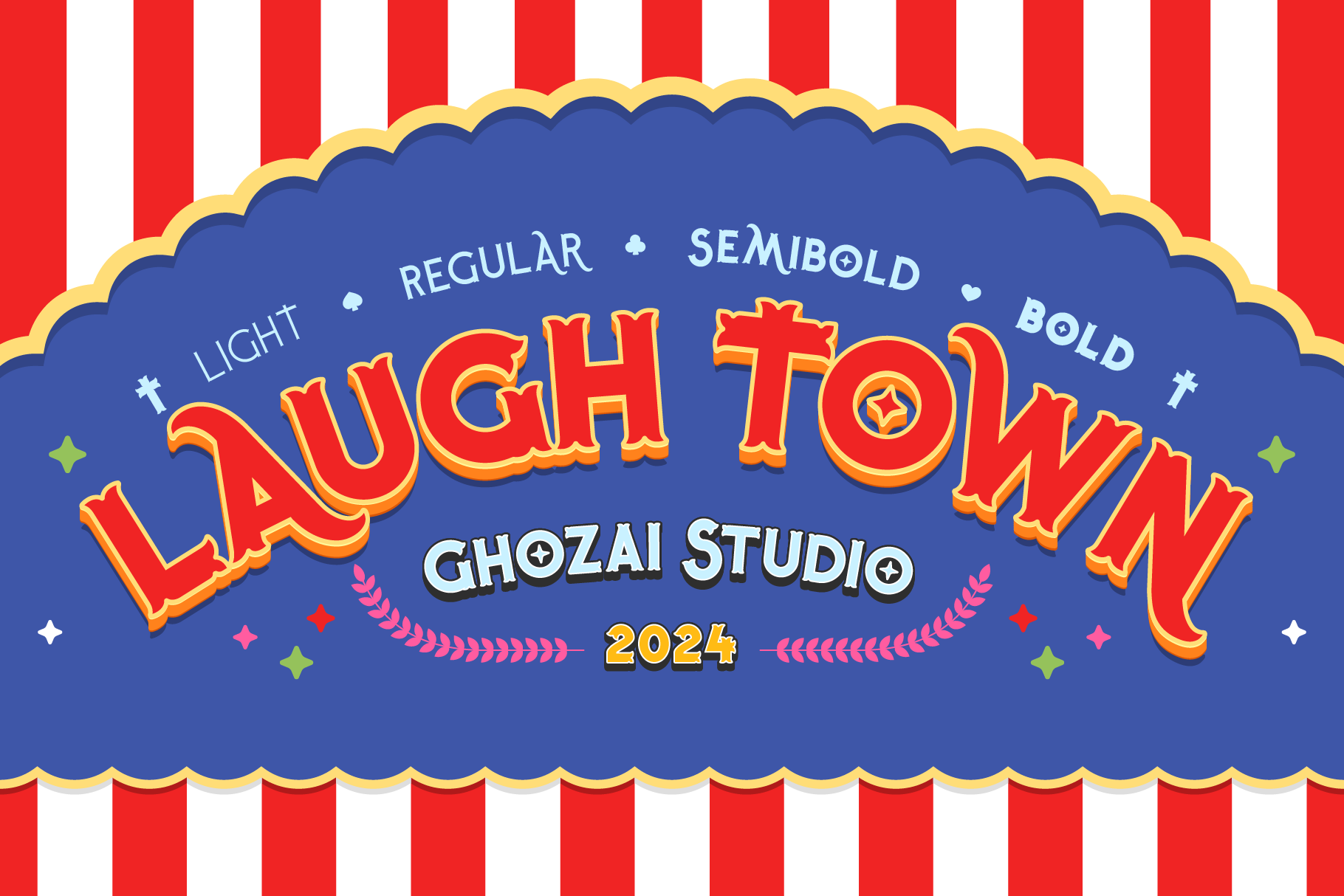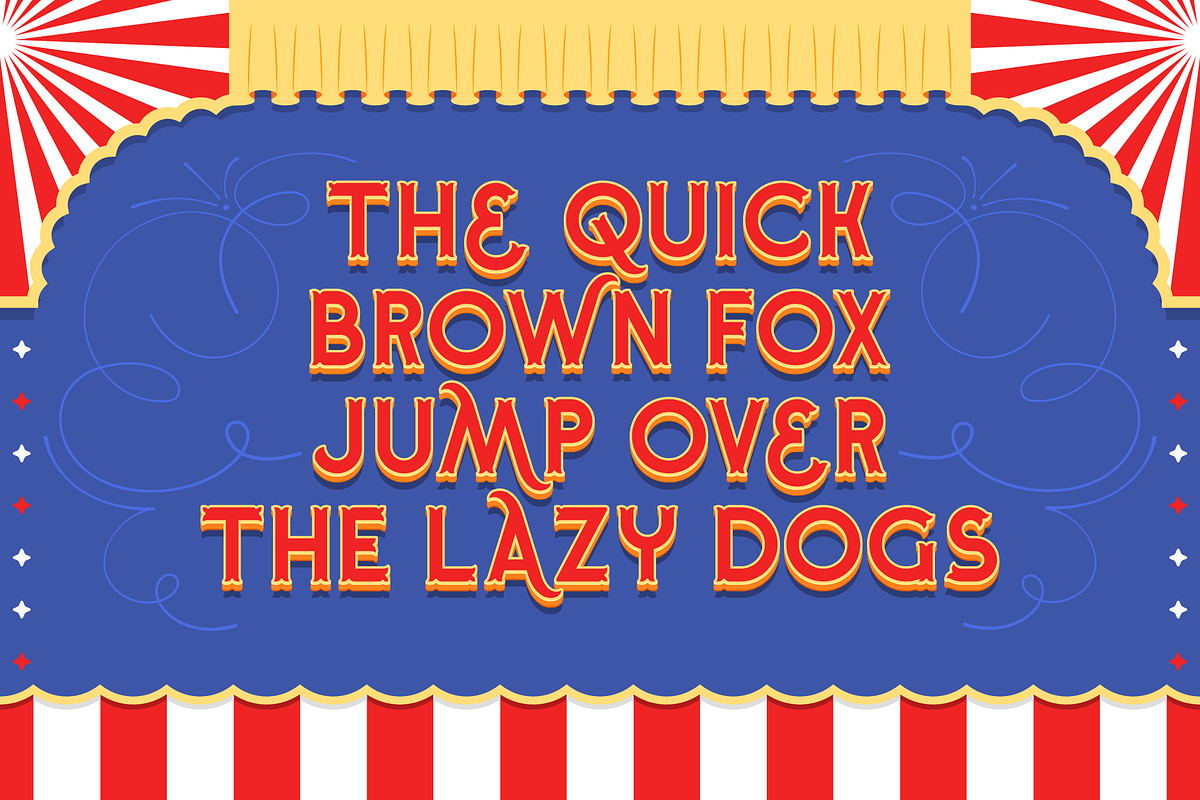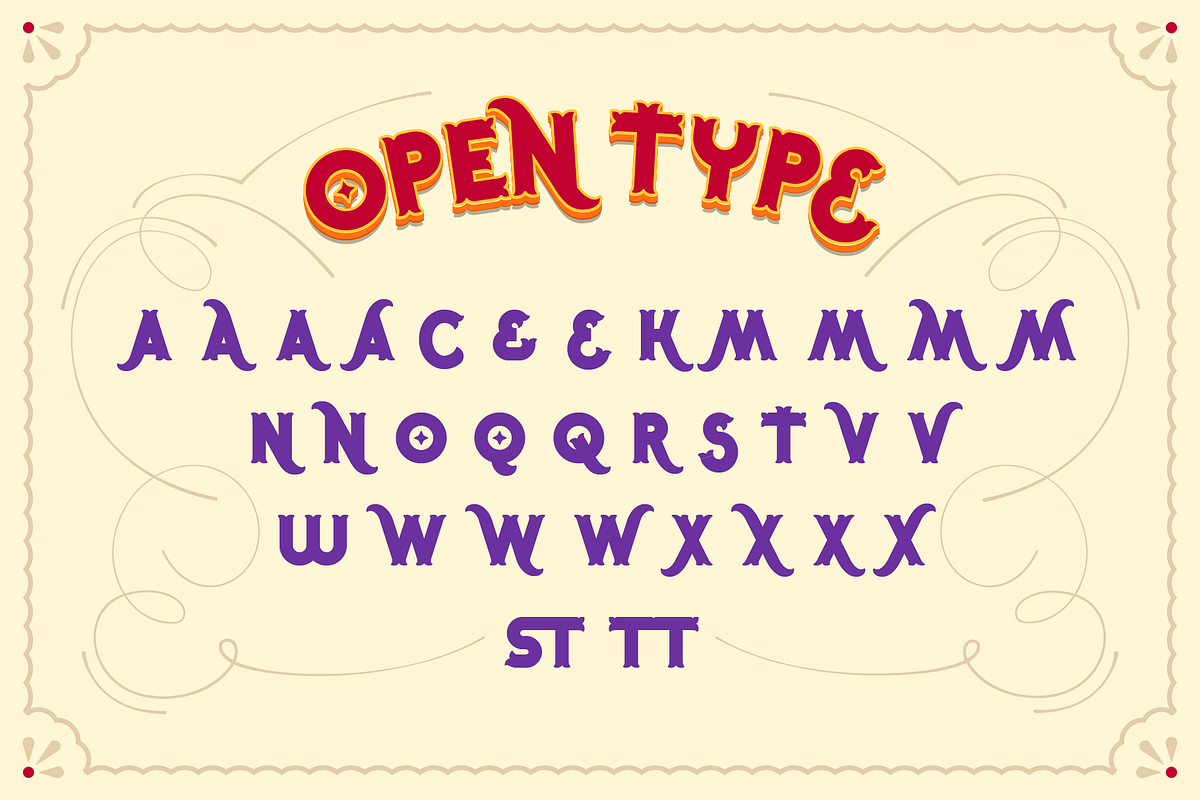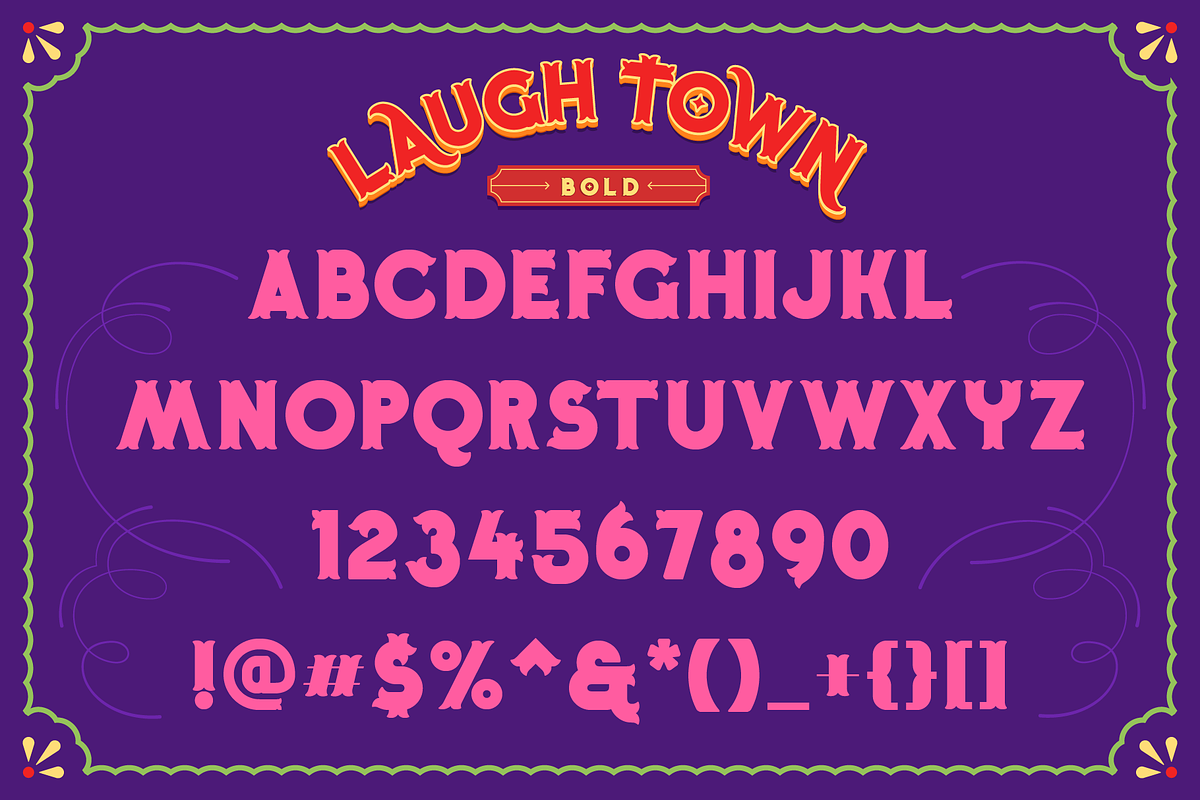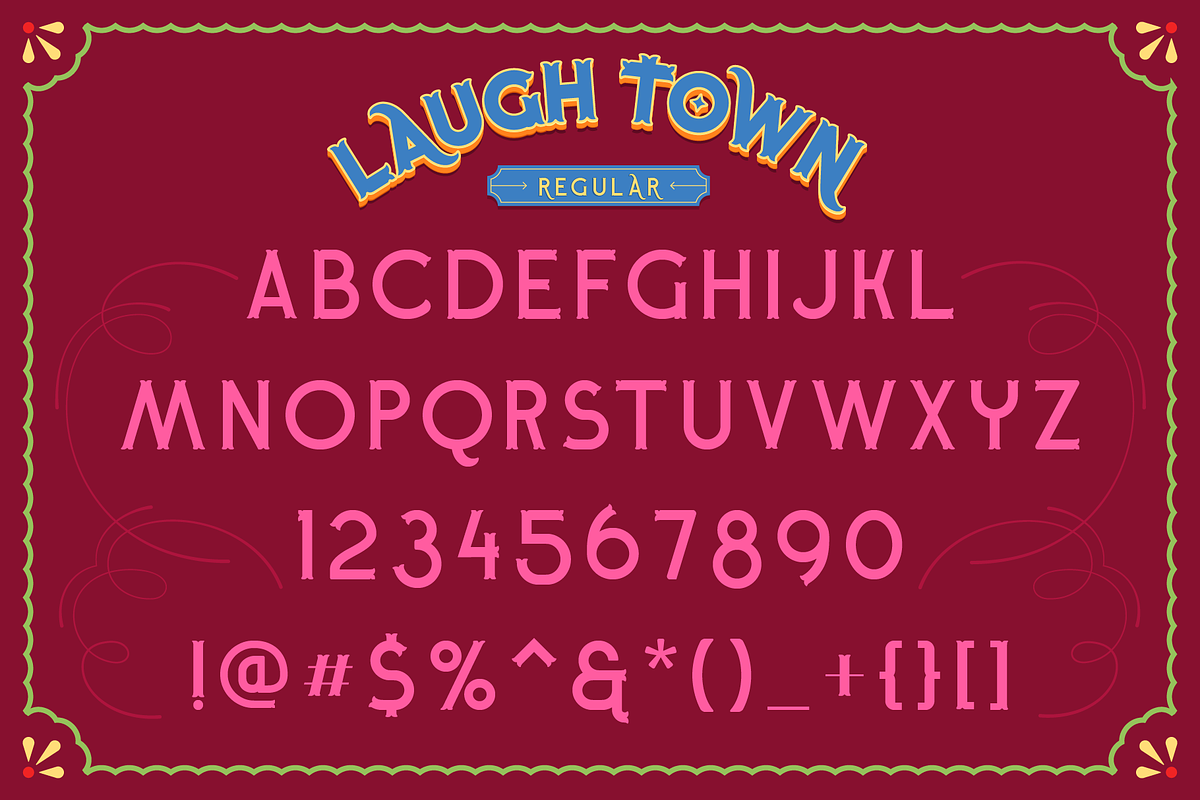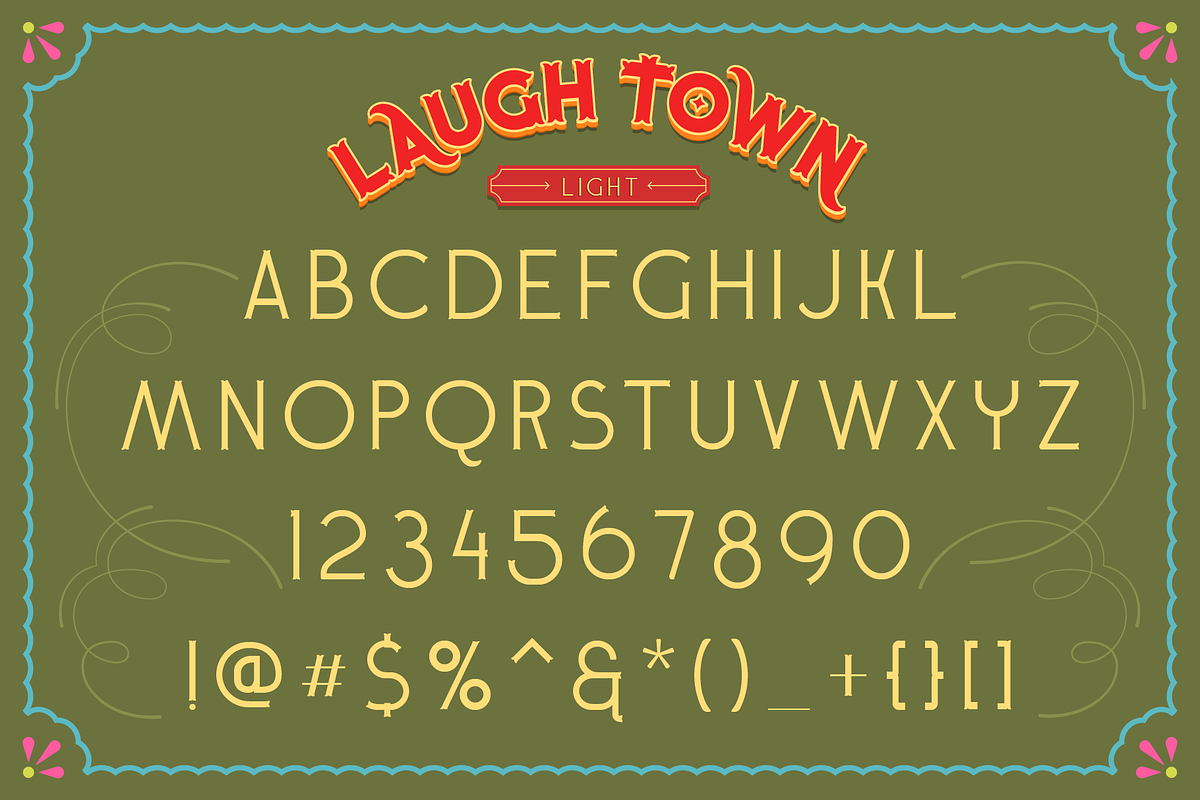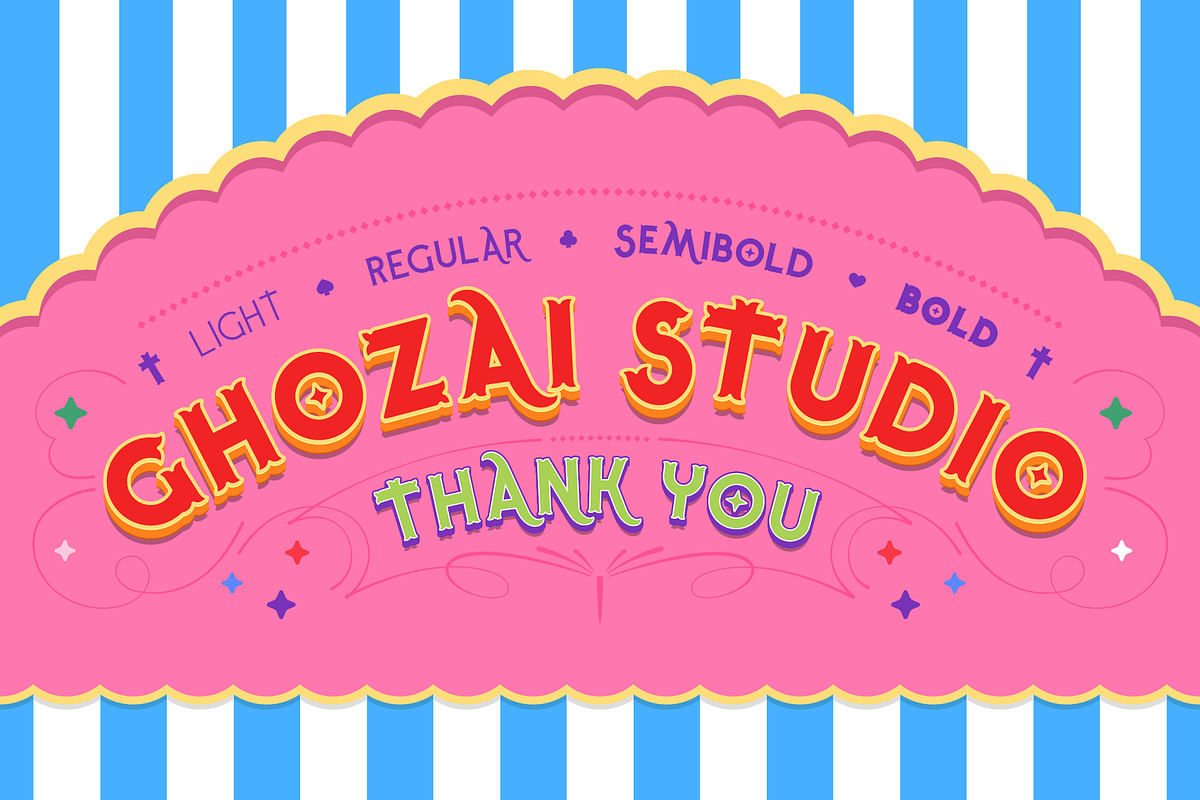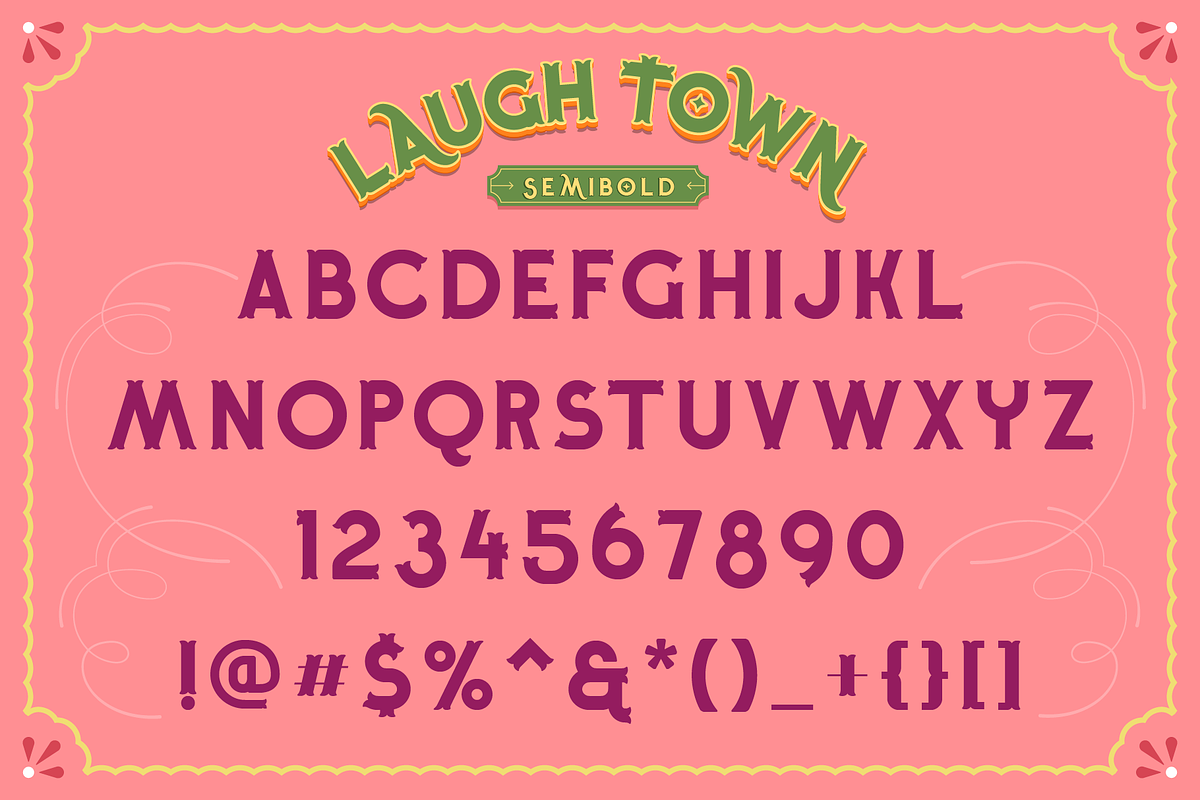
Laugh Tale - Display font
Laugh Tale is a display font that inspired by a carnival/circus typeface. Laugh tale comes in a wide range of styles from light to bold. Laugh Tale is also supported with many Opentype features and is multilingual to support any needs. Laugh Tale is ideal for festivals, carnival themes, headlines, titles, signage, branding, and strong designs that require a big impact.